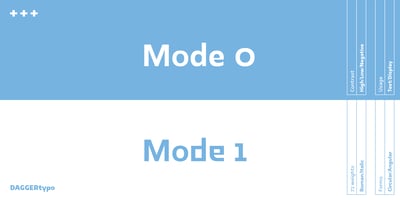
Mode
Mode font
Mode Font Family was designed by Nino Bodač and published by Daggertypo. Mode contains 67 styles and family package options. Mode is a typographic experiment exploring how same sans serif form adapts to different circumstances and what are the possibilities in variations of Thin / Black, Contrast / Negative contrast.Two main groups are Mode 0 (with rounded shapes) and Mode 1 (with angular shapes). Each of them varies from Thin to Black in six cuts, in the same manner it varies from contrast shapes to negative contrast.Mode comes in total of 72 cuts regular and italic, it speaks majority of Latin based languages and is equipped with smcp, c2sc, Old style and all caps numerals.Mode is made by DAGGERtypo during a period of 2019/2020